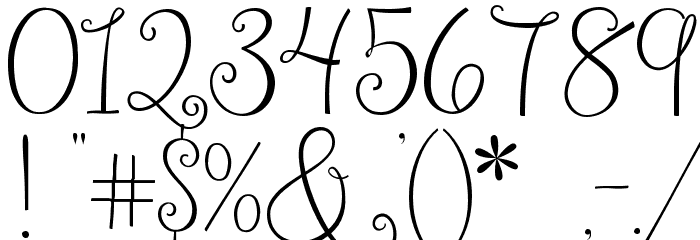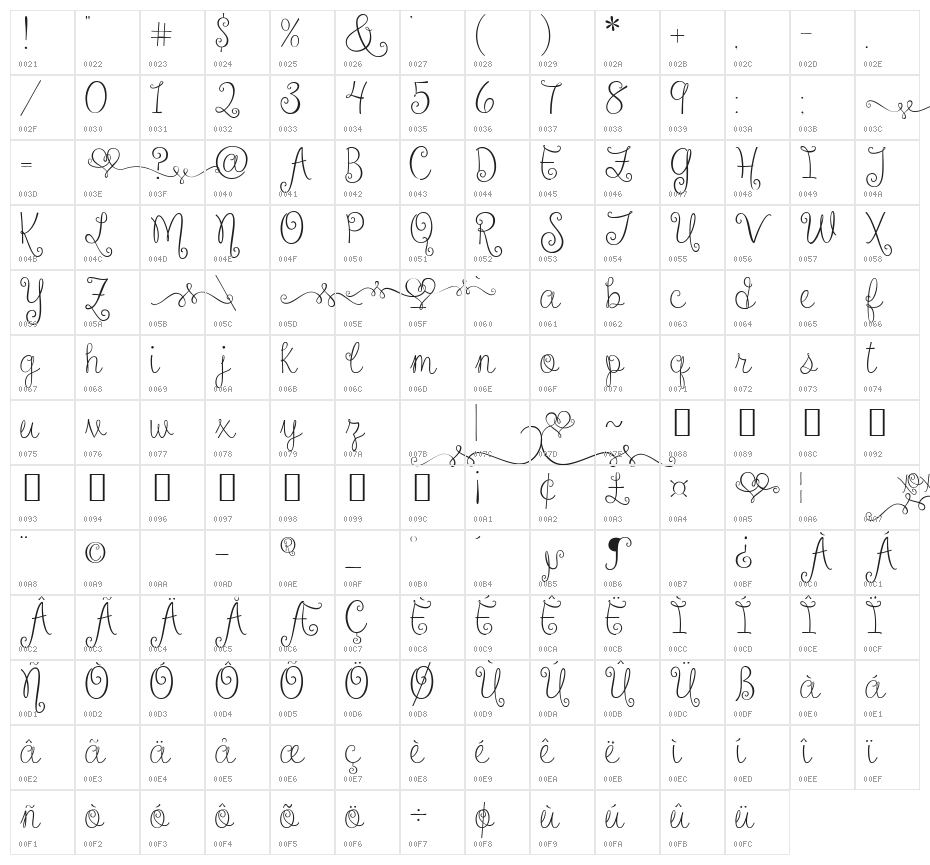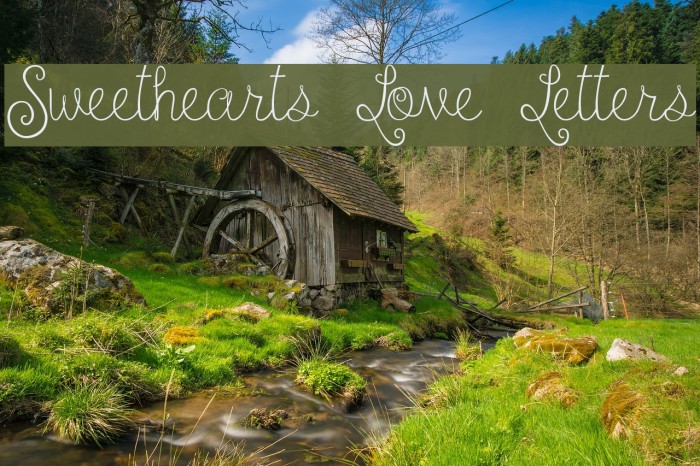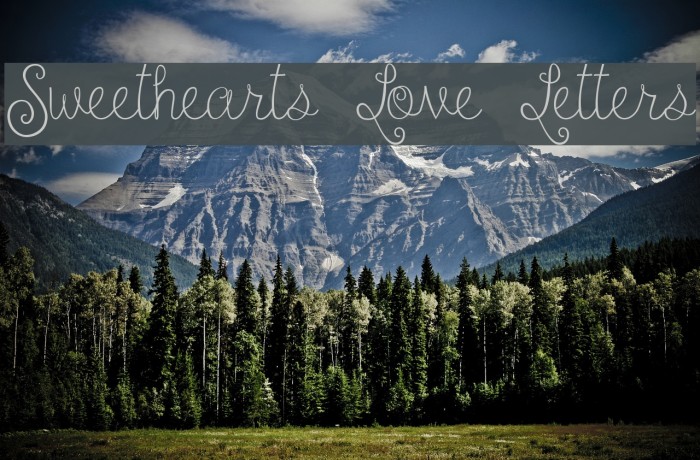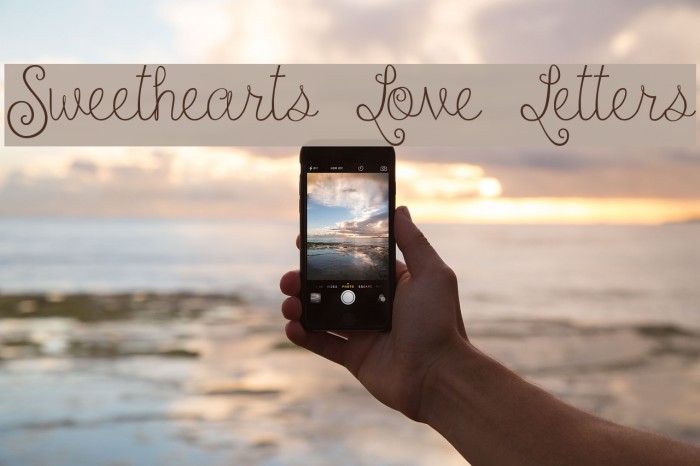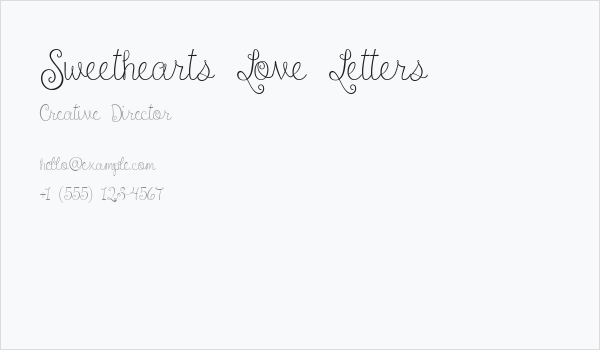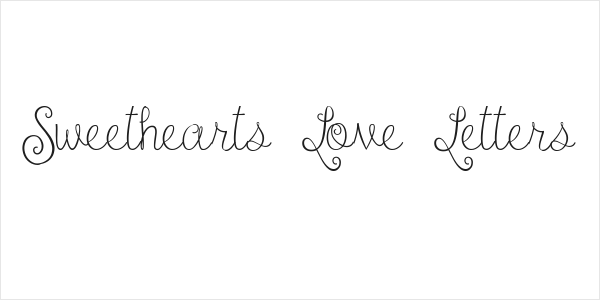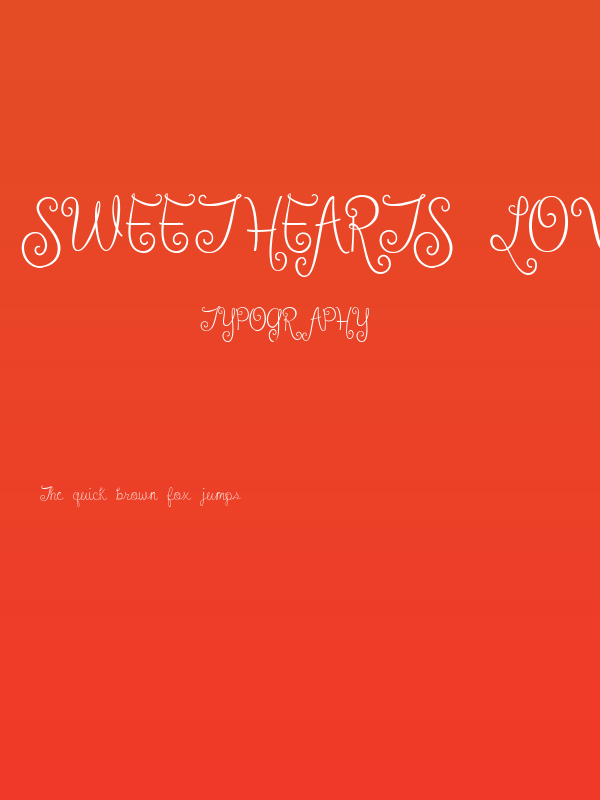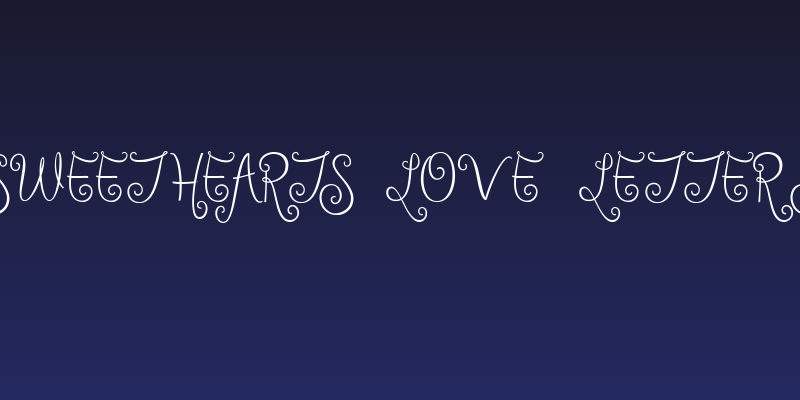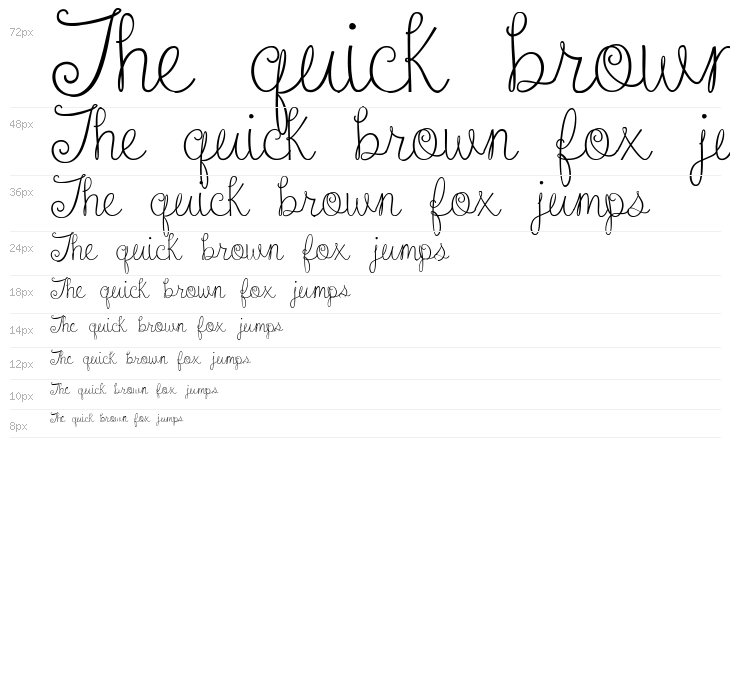
Sweethearts Love Letters Font
Sweethearts Love Letters Description
This font features a whimsical and playful design, characterized by its curly and looping strokes. The uppercase letters are adorned with elegant swirls, giving them a decorative flair, while the lowercase letters maintain a more straightforward yet still charming appearance. The numerals and special characters follow the same playful aesthetic, making the font cohesive and visually appealing. The overall style is reminiscent of handwritten calligraphy, with a touch of modern elegance. The font's unique character makes it suitable for creative and romantic projects, adding a personal and artistic touch to any design.
Use CaseHeadlines, Logos, Invitations
Proposed ProjectsIdeal for wedding invitations, greeting cards, personal branding, and creative projects that require a romantic or artistic touch.